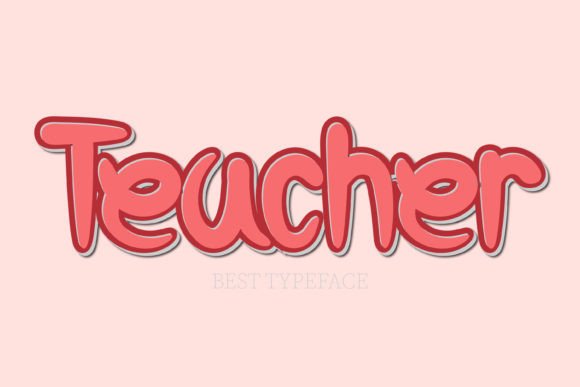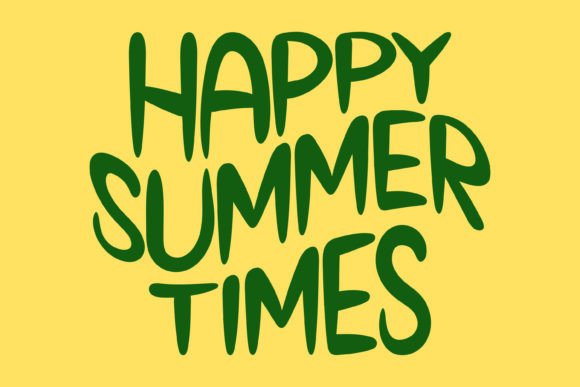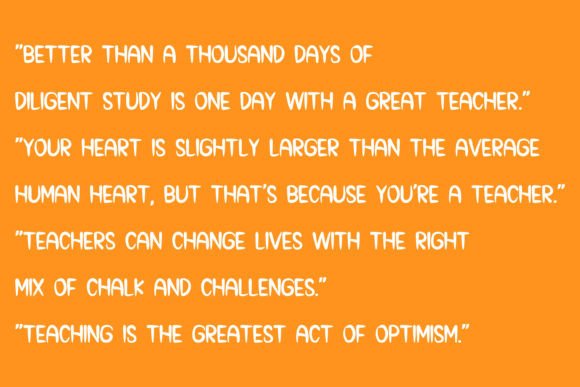
A Fun and Quirky Handwritten Font
Teacher Font is a fun and quirky handwritten typeface designed to bring a playful and creative touch to your projects. Its whimsical strokes and charming design make it ideal for a wide range of creative applications, from crafts to branding. Whether you’re working on school projects, greeting cards, or DIY designs, this font adds an authentic, personalized feel that is both unique and memorable.
Perfect for Craft Projects and DIY Designs
For craft projects and DIY designs, the Teacher Font is the perfect choice. Whether you’re creating scrapbooks, greeting cards, or home decor pieces, this font brings a playful and distinctive style to your designs. Its fun handwritten look adds a charming touch, making your DIY projects stand out with personality and character. Ideal for personalized gifts, crafty designs, and customized stationery, this font gives your creations a touch of whimsy.
Great for School and Educational Materials
The Teacher Font is an excellent choice for school projects and educational materials. Whether you’re designing posters, worksheets, or educational flyers, this font adds a fun, approachable vibe to your designs. Its handwritten style makes it easy for students and children to relate to, adding a personal touch that engages and inspires. Whether you’re working on classroom designs, learning materials, or study aids, this font brings your ideas to life in a creative, fun way.
Ideal for Branding and Custom Designs
For branding and custom designs, the Teacher Font adds a unique, handcrafted feel to your projects. Whether you’re working on brand logos, business cards, or advertisement materials, this font gives your designs a playful, memorable element that stands out. Perfect for businesses that want to convey creativity, approachability, and a personalized touch, the Teacher Font works well for local shops, artisanal brands, or any brand looking to create a strong, distinctive identity.
Fun for Social Media and Digital Content
For social media posts and digital content, the Teacher Font brings a playful and quirky charm to your designs. Whether you’re creating Instagram stories, Facebook posts, or website banners, this font grabs attention with its whimsical style. Perfect for personal blogs, creative businesses, or educational content, the font adds a distinctive and lighthearted touch to your digital presence. Its approachable design ensures that your content feels engaging and fun for your audience.
Great for Greeting Cards and Invitations
The Teacher Font is perfect for creating greeting cards and invitations. Whether you’re designing birthday cards, baby shower invitations, or holiday greetings, this font adds a fun and creative element to your stationery. Its handwritten style ensures your designs feel personalized, while its playful appeal makes it perfect for casual events and celebrations. Ideal for custom invitations and event flyers, this font brings a cheerful vibe to any occasion.
Legible, Playful, and Versatile
Despite its quirky handwritten style, the Teacher Font remains legible and easy to use. Its smooth strokes and consistent design ensure that your text is clear and readable, even when used for longer passages or smaller sizes. Whether you’re using it for headlines, captions, or body text, this font provides the perfect balance of fun and readability, making it suitable for a wide variety of design applications.
Add Fun and Personality to Your Designs with Teacher Font
If you’re looking for a fun, quirky handwritten font to add personality and charm to your designs, the Teacher Font is the perfect choice. Whether you’re designing crafts, greeting cards, branding materials, or social media content, this font brings a playful, personalized touch to your work. Let the Teacher Font help you create memorable, creative designs that stand out and leave a lasting impression.